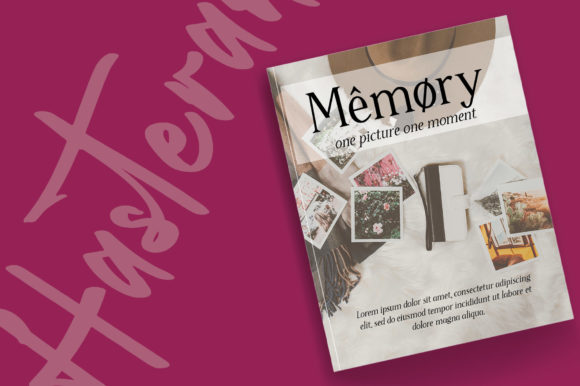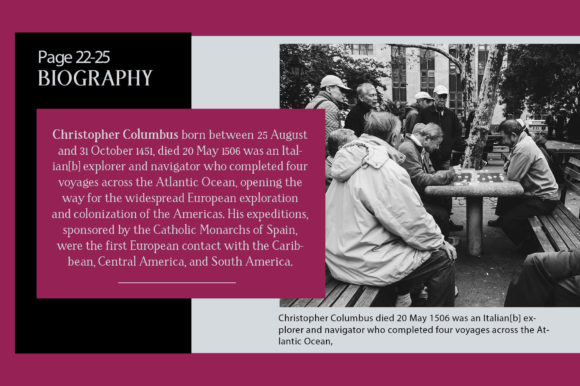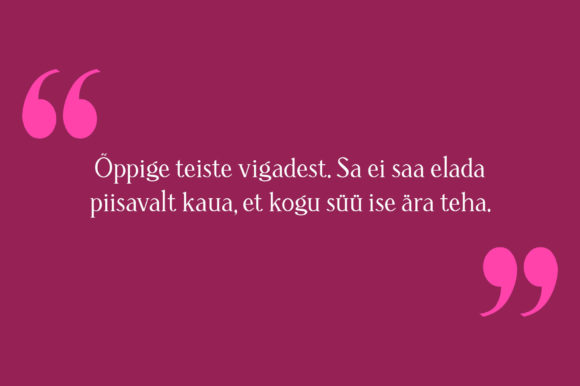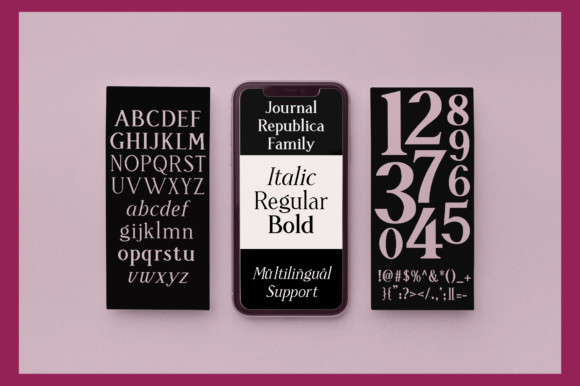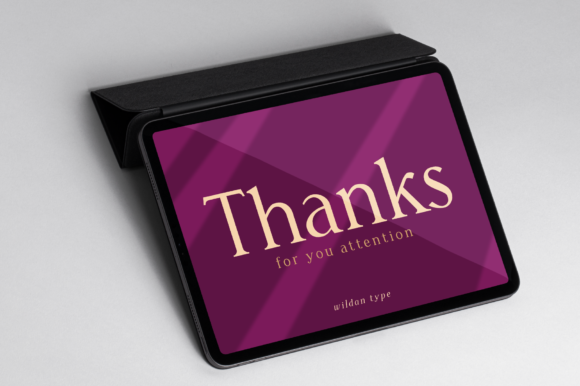
Introduction to Journal Republica Font
Have you ever found yourself lost in the pages of an old book, mesmerized by the elegant typography that transports you to a bygone era? For designers, this moment is not just a nostalgic escape, but a spark that ignites the desire to create something beautiful. That’s exactly what the Journal Republica Font offers – a unique blend of classic and modern styles that will elevate your creative project to new heights.
As a valuable design resource, Journal Republica Font is an assertive and authentic serif typeface that stands out from the crowd. Its high quality and versatility make it an ideal choice for a wide range of applications, from letterheads and titles to stationery. And the best part? You can download it for free, complete with a transparent background that allows for seamless integration into your design.
Key Features of Journal Republica Font
• High-quality design for creative projects: Journal Republica Font is designed to provide a unique and elegant look for various design resources.
• Unique characteristics: Journal Republica Font features a unique blend of elegance and sophistication, making it perfect for creative projects that require a touch of sophistication.
Honest Review: Journal Republica Font
I recently stumbled upon the Journal Republica Font, and I must say it’s been a game-changer for my design projects. The high quality of this font is immediately apparent, and it’s a great addition to any design resource.
One of the standout features of the Journal Republica Font is its transparent background, which makes it incredibly versatile. I’ve used it for everything from digital signage to print materials, and it looks great every time. ✨
Here are some of the things that work well with the Journal Republica Font:
• High-quality design: The font is crisp and clear, making it perfect for a variety of creative projects.
• Transparent background: This feature allows me to easily integrate the font into any design, whether it’s digital or print.
One limitation of the Journal Republica Font is its limited character set. While it’s not a major issue for me, it may be a problem for designers who need a wide range of characters. ⚠️
Overall, I’m thoroughly impressed with the Journal Republica Font. It’s a great design resource that’s perfect for any creative project. I highly recommend it to designers of all levels.
Tips for Getting the Most Out of Journal Republica Font
Use the font with a transparent background to create a design resource that can be easily layered over other elements. Experiment with different font sizes and styles to add depth and interest to your design. Use the font in a creative project, such as a blog post or social media graphic, to add a touch of elegance and sophistication.
Common Use Cases for Journal Republica Font
The Journal Republica Font is suitable for a wide range of design projects, including blog posts, social media graphics, brochures, and business cards. Its high-quality design and transparent background make it an ideal choice for designers looking for a reliable design resource.